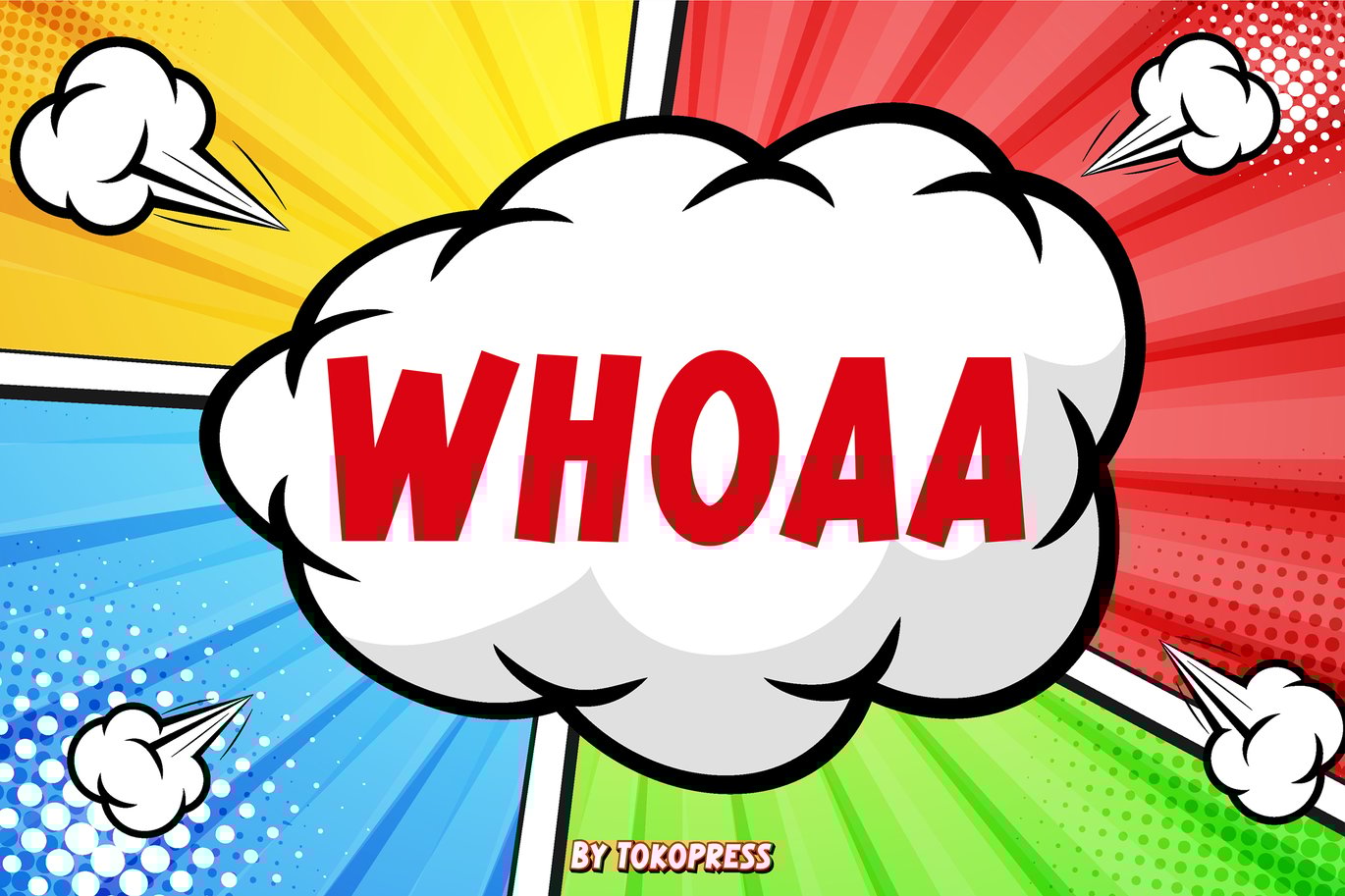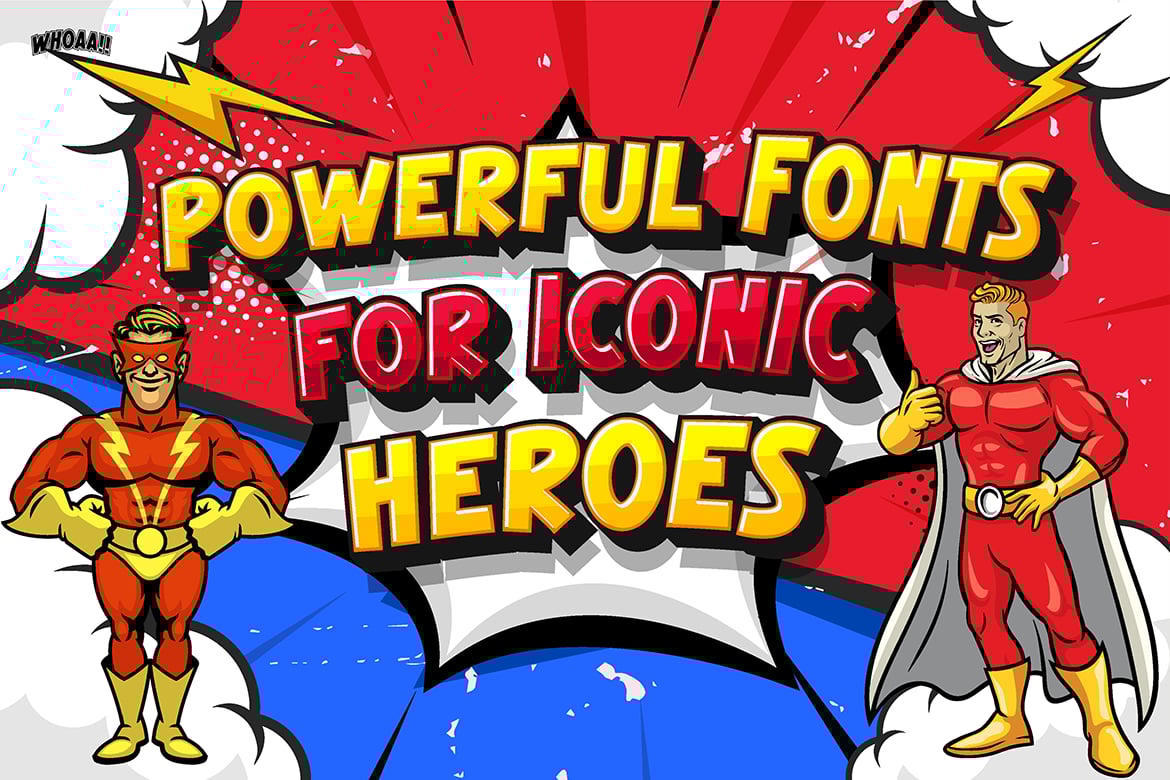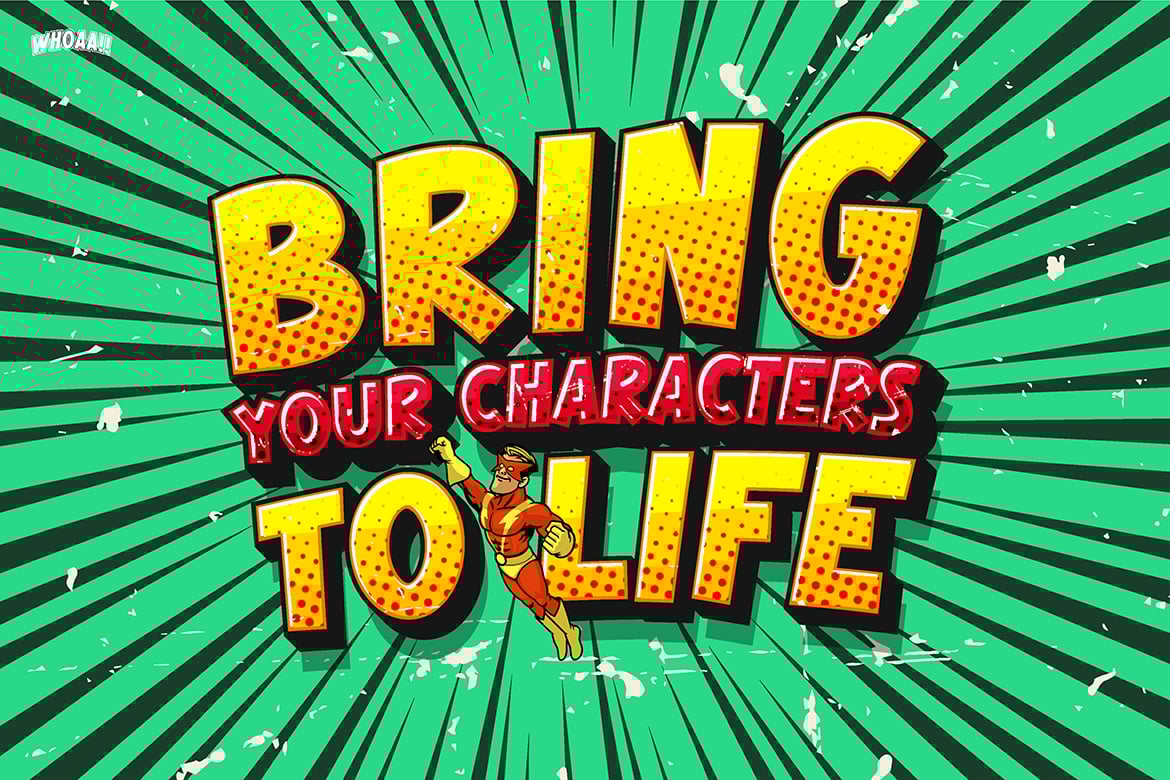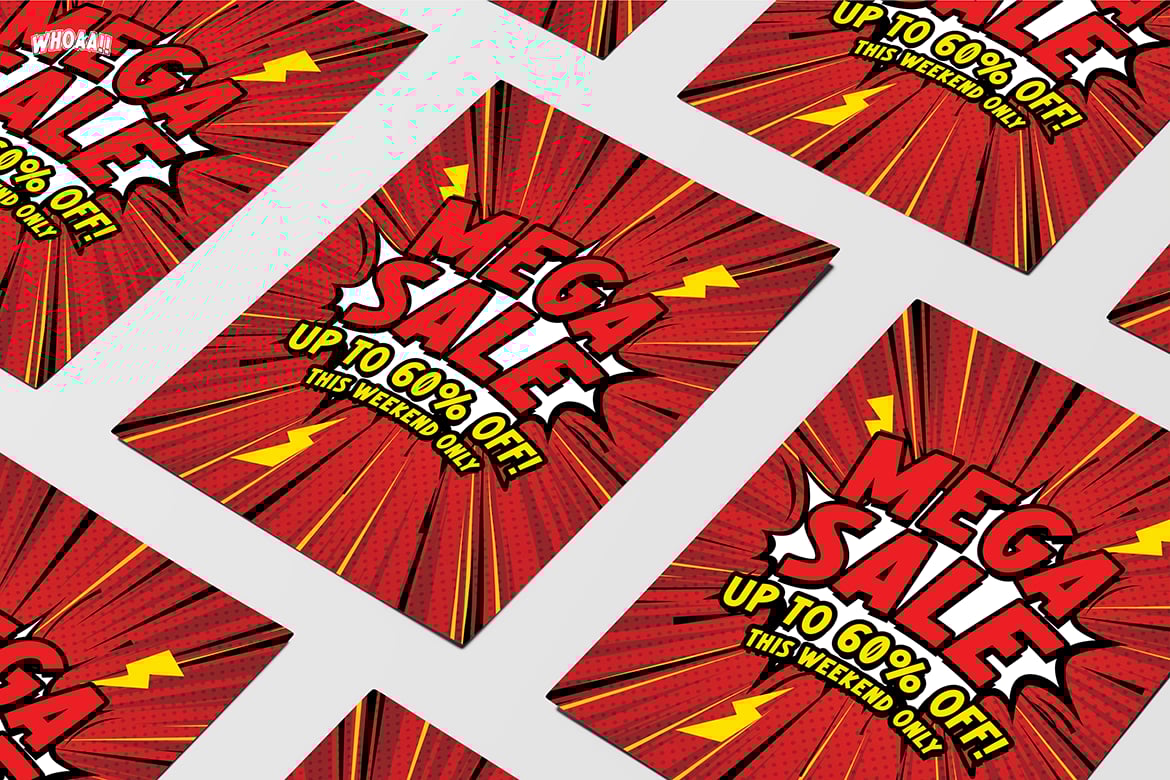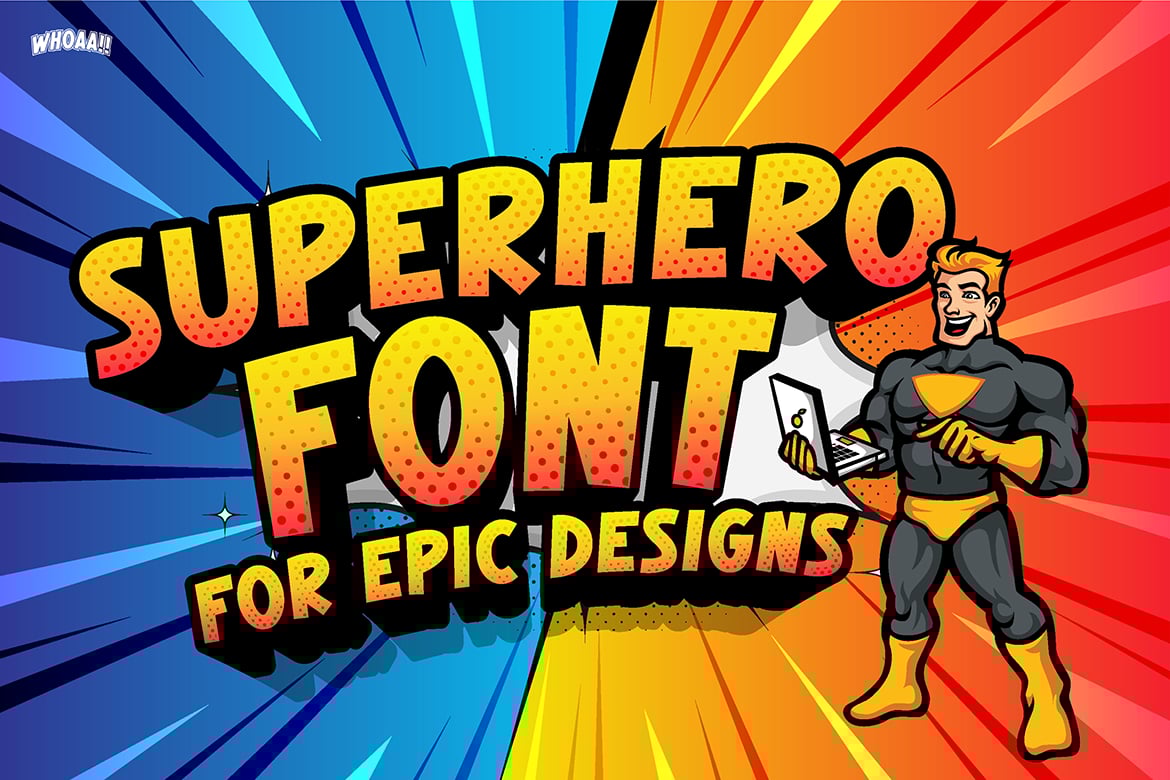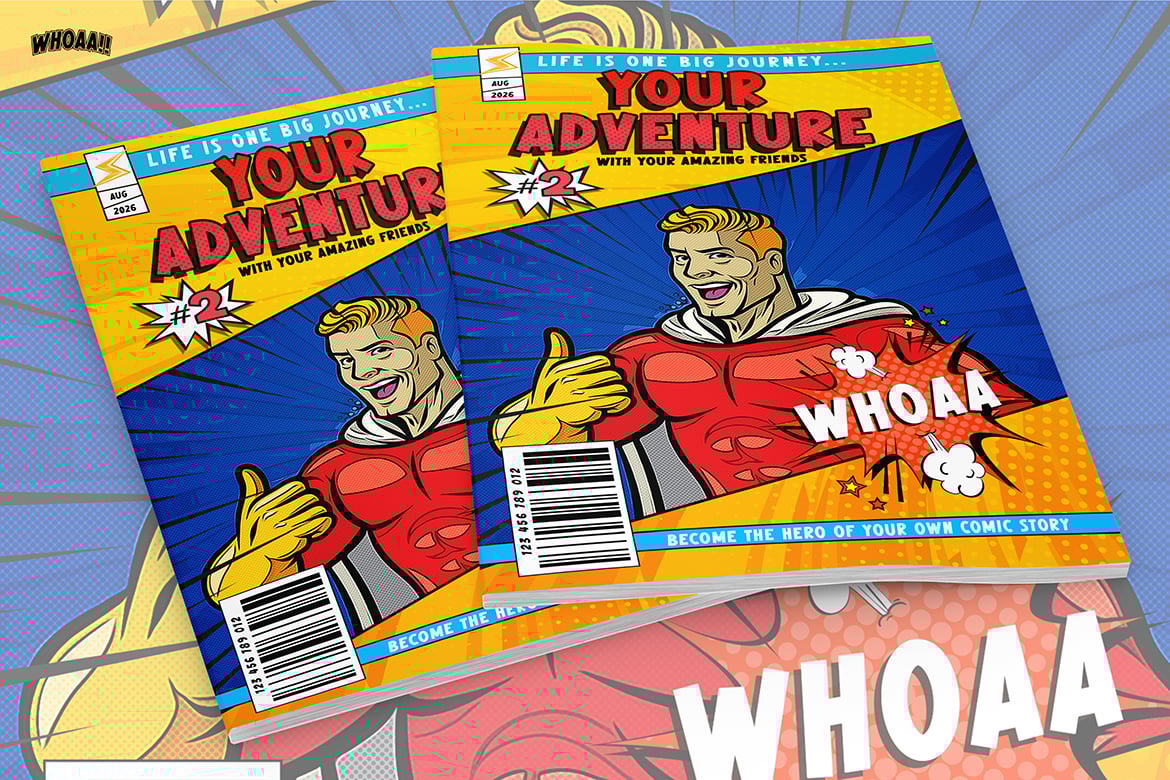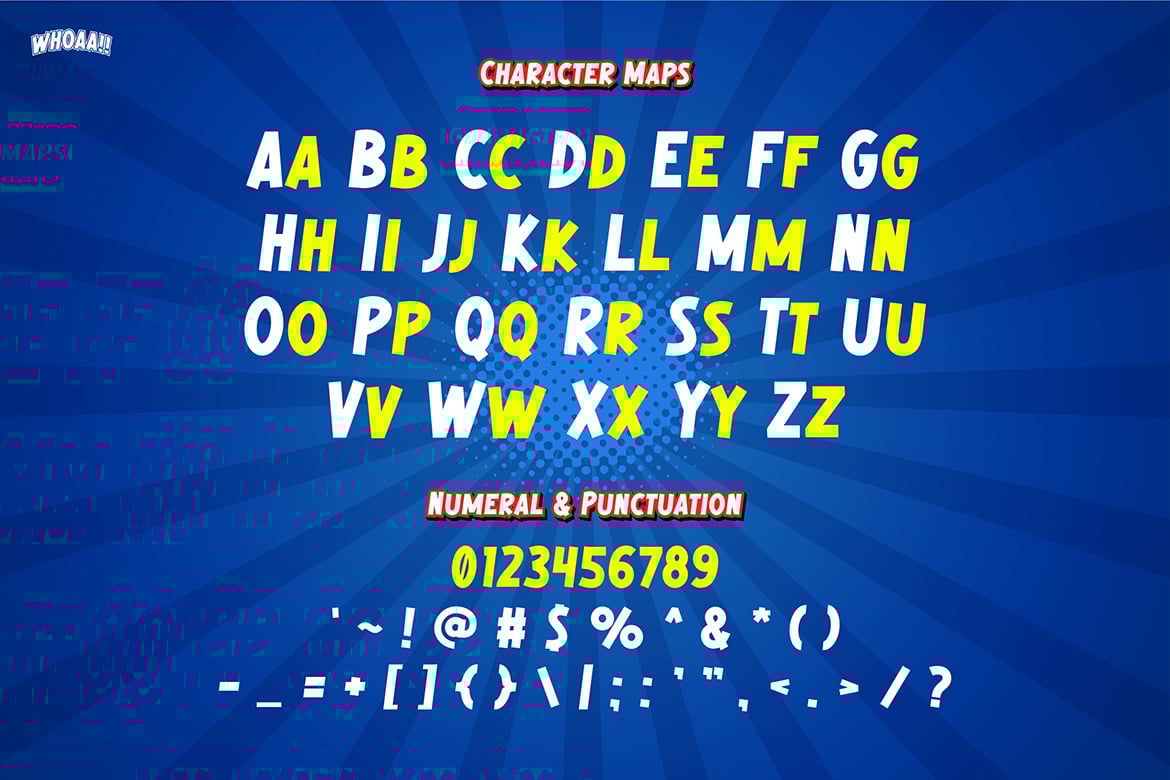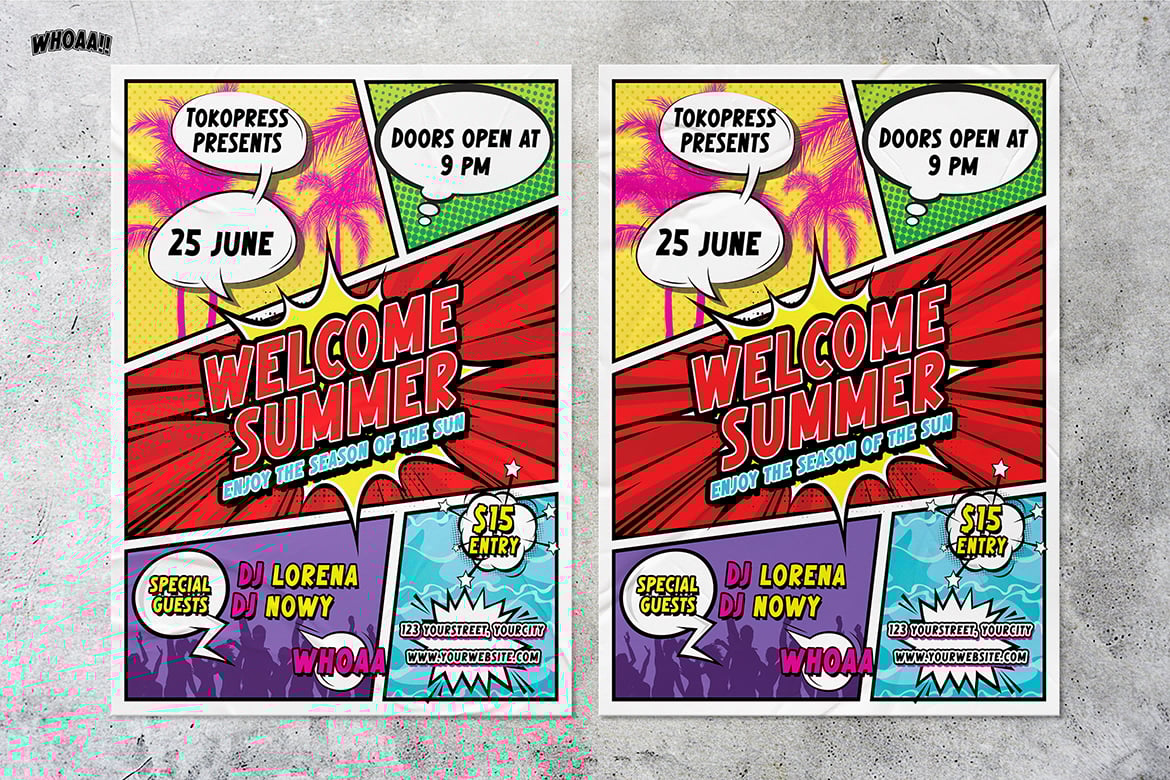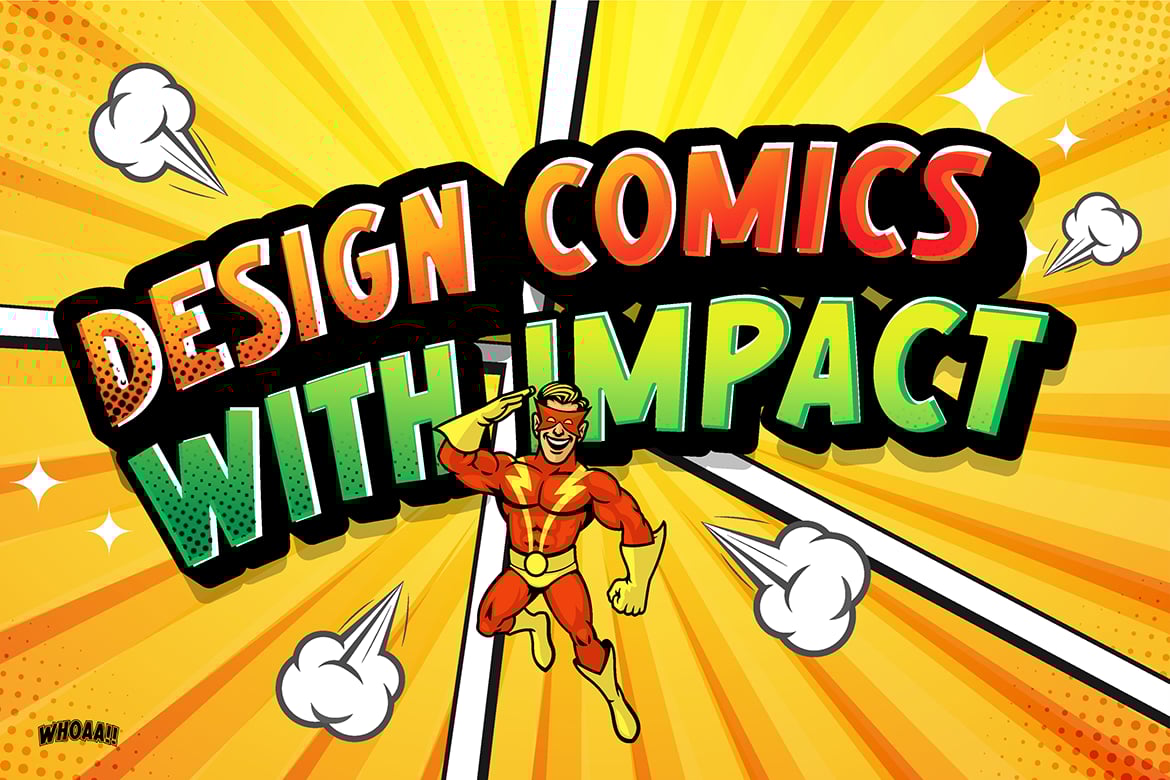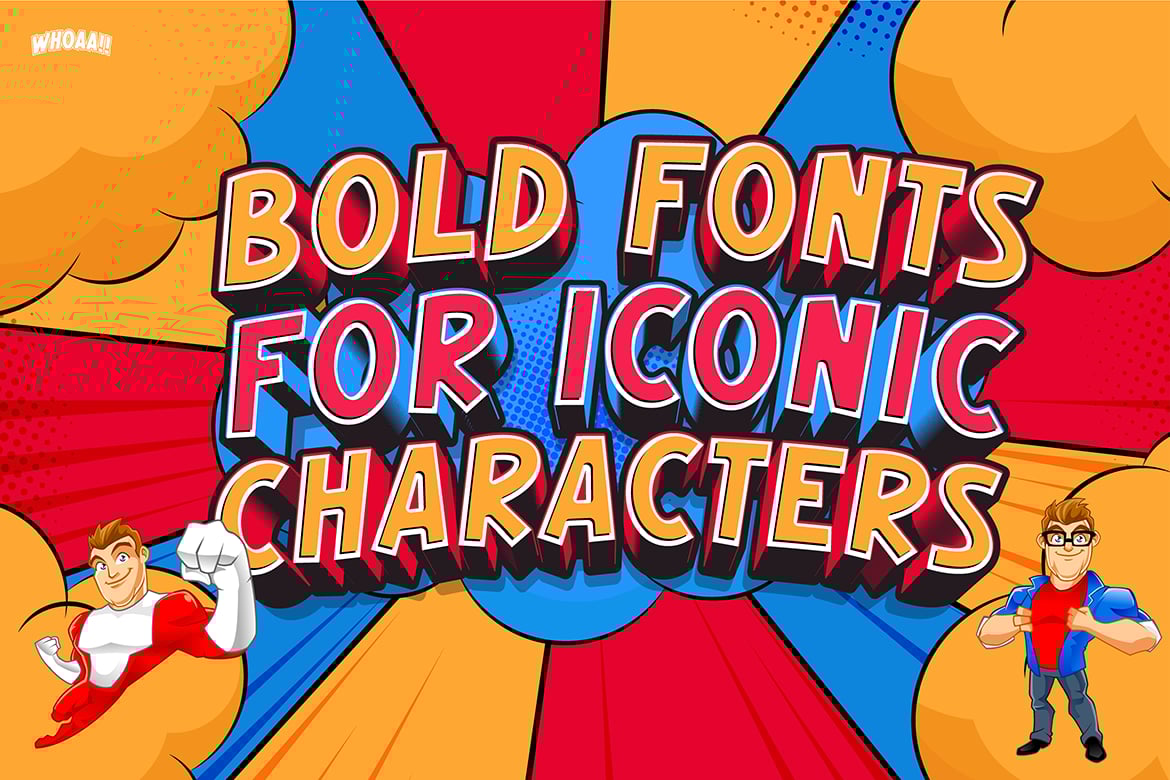
Cartoon Font – Whoaa
Whoaa is a bold and energetic display font inspired by classic comic book styles. Its striking letterforms and playful curves make it perfect for fun, engaging designs that need a dynamic and attention-grabbing look. The vibrant style of Whoaa complements projects where excitement and creativity are key, bringing a powerful visual impact to any design.
Market Applications:
- Comic Book and Superhero Designs: Whoaa is an ideal choice for comic book covers, superhero-themed events, and promotional materials. Its bold and exaggerated style brings that classic comic energy to life.
- Event Posters & Promotions: Perfect for high-energy events like game releases, superhero conventions, or dynamic product launches where a loud and vibrant font is needed.
- Kids’ Products & Packaging: Use Whoaa for toys, games, or children’s products where fun, adventure, and playful designs are essential. It adds an exciting twist to kids’ branding.
- Gaming Graphics: The boldness of Whoaa suits game titles, in-game menus, and promotional materials that need to stand out with energy and vibrancy.
- Advertising Campaigns: Whoaa is perfect for digital ads, posters, and banners that need to capture immediate attention with a loud and fun visual identity.